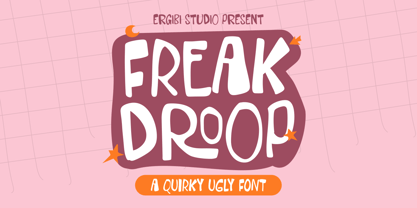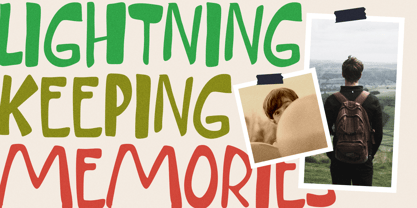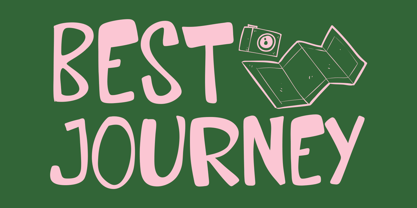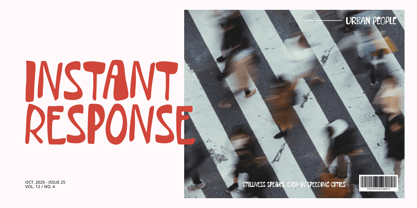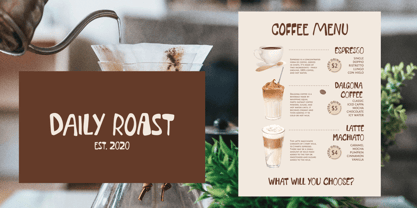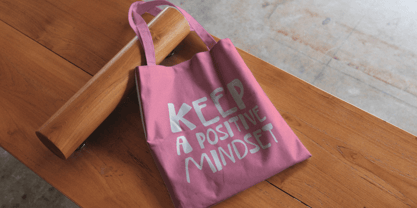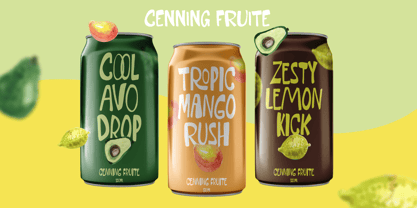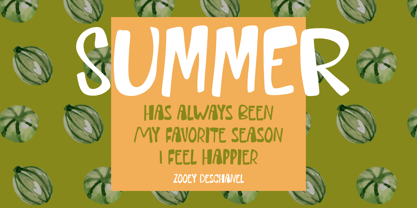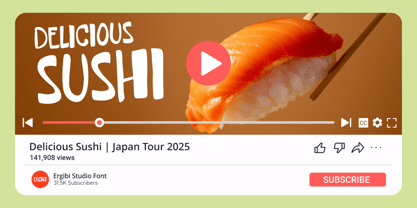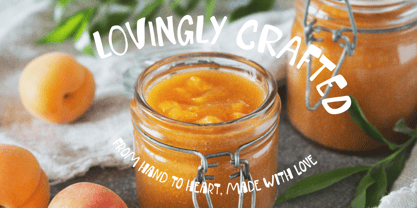
Freak Droop
by Ergibi Studio
The Freak Droop Font Family was designed by Riyadh Rahman and published by Ergibi Studio. Freak Droop contains 1 styles. More about this family
Freak Droop is a quirky, handwritten ugly font crafted for bold and expressive design projects. Perfect for logotypes, watermarks, posters, branding materials, promotions, product packaging, and more — this font brings an intentionally "ugly" charm to every letterform.
Each character is designed with raw, irregular strokes to give your design a touch of chaos and personality. This font a only uppercase and Dive into the previews above for inspiration and unleash your wild side in design. Happy creating!